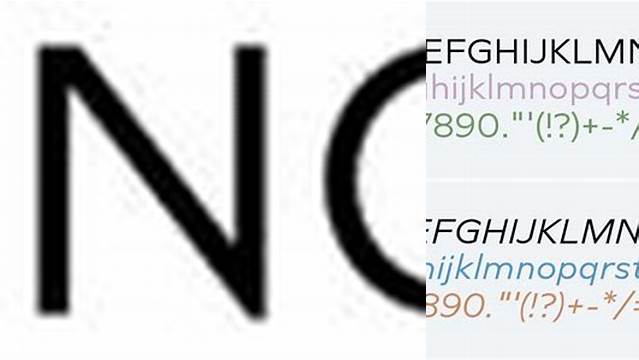
Are you on the hunt for a sleek and modern font to elevate your design projects? Look no further! The Novera Modern Regular Font is a fantastic choice, offering a contemporary aesthetic that's both versatile and visually appealing. Guys, in this article, we're diving deep into everything you need to know about this awesome font, including where to download it for free, its key features, and how to best utilize it in your creative endeavors. So, buckle up and get ready to add a touch of modern elegance to your designs!
What Makes Novera Modern Regular Font So Special?
The Novera Modern Regular Font stands out from the crowd due to its clean lines, balanced letterforms, and overall sophisticated appearance. It's a sans-serif typeface, which means it lacks the small decorative strokes (serifs) that you see in fonts like Times New Roman. This gives it a more contemporary and minimalist feel, making it perfect for a wide range of applications. Think about logos, website headers, body text, posters, and even branding materials – Novera can handle it all. Its versatility stems from its carefully crafted design, ensuring readability across various sizes and platforms. The font's neutral yet stylish character makes it a great choice for projects that require a touch of elegance without being overly flashy. Whether you're designing a sleek corporate identity or a trendy social media campaign, Novera Modern Regular Font can help you achieve a professional and polished look. The font's appeal also lies in its adaptability – it pairs well with other fonts, allowing for creative combinations and unique design outcomes. You can use it as the primary font for headlines and titles, or as a secondary font for body text, creating a visually harmonious and balanced composition. Its clear and legible structure ensures that your message is conveyed effectively, while its modern aesthetic adds a touch of sophistication. Furthermore, the Novera Modern Regular Font is often favored for its excellent kerning and spacing, which contribute to its overall readability and visual appeal. This attention to detail makes it a reliable choice for designers who value both aesthetics and functionality. In short, Novera Modern Regular Font is a versatile, modern, and visually appealing typeface that can enhance a wide range of design projects. Its clean lines, balanced letterforms, and overall sophistication make it a go-to option for designers seeking a contemporary aesthetic.
Key Features and Characteristics of Novera Modern Regular Font
Let's delve into the key features and characteristics that make the Novera Modern Regular Font a standout choice for designers. Understanding these elements will help you appreciate its unique qualities and effectively utilize it in your projects. First and foremost, Novera is a sans-serif typeface, as we mentioned earlier. This means it lacks serifs, giving it a clean and contemporary appearance. The absence of serifs makes it particularly well-suited for digital displays, where legibility is paramount. Its clean lines and simple forms contribute to its readability, even at smaller sizes. The font's letterforms are carefully balanced, creating a harmonious and visually appealing rhythm. Each character is meticulously designed to complement the others, resulting in a cohesive and professional look. The Novera Modern Regular Font boasts excellent kerning and spacing, which further enhances its readability and aesthetic appeal. Kerning refers to the spacing between individual letters, while spacing refers to the overall distance between words and lines of text. Well-kerned and spaced fonts are easier to read and create a more polished visual impression. The font's x-height, which is the height of the lowercase letters, is also an important factor. Novera has a moderate x-height, contributing to its legibility and balanced proportions. The font's weight, or thickness, is another characteristic to consider. The regular weight of Novera makes it versatile for both headlines and body text. It's not too bold, nor too light, striking a perfect balance for a wide range of applications. In addition to its aesthetic qualities, Novera Modern Regular Font also offers practical benefits. It's often available in various formats, including OTF (OpenType Font) and TTF (TrueType Font), ensuring compatibility across different operating systems and software. The font also supports a wide range of characters, including uppercase and lowercase letters, numbers, punctuation marks, and symbols. This comprehensive character set allows you to create diverse and expressive designs. Understanding these key features and characteristics of Novera Modern Regular Font will empower you to make informed decisions about its usage in your projects. Its clean lines, balanced letterforms, excellent kerning, and practical benefits make it a valuable asset in any designer's toolkit.
How to Best Utilize Novera Modern Regular Font in Your Designs
Now that you know what makes Novera Modern Regular Font so special, let's explore how to best utilize it in your designs. This font's versatility makes it a fantastic choice for a wide range of projects, but understanding its strengths and limitations will help you maximize its impact. One of the primary uses for Novera is in branding and logo design. Its clean and modern aesthetic can convey a sense of sophistication and professionalism, making it ideal for businesses that want to project a contemporary image. The font's legibility ensures that your logo will be easily recognizable, even at smaller sizes. When using Novera in logos, consider pairing it with a contrasting font for a tagline or supporting text. This can create visual interest and hierarchy in your design. Another excellent application for Novera is in web design. Its sans-serif nature makes it highly readable on screens, which is crucial for website content. You can use it for headings, body text, navigation menus, and more. The font's clean lines and balanced letterforms ensure that your website will have a professional and user-friendly appearance. When using Novera for body text, pay attention to line spacing and font size to ensure optimal readability. In print design, Novera can be used for a variety of projects, including posters, brochures, flyers, and business cards. Its versatility allows it to adapt to different styles and formats. When using Novera in print, consider the overall layout and composition of your design. The font's clean lines can complement both minimalist and more complex designs. For social media graphics, Novera can help you create visually appealing and engaging content. Its modern aesthetic is well-suited for social media platforms, where visuals play a crucial role in attracting attention. When using Novera in social media, experiment with different font sizes, colors, and styles to create a unique and eye-catching look. Remember, guys, that Novera pairs well with a variety of other fonts, allowing for creative combinations. Consider pairing it with a serif font for a classic and elegant look, or with another sans-serif font for a more contemporary feel. By understanding Novera's strengths and experimenting with its applications, you can effectively incorporate it into your designs and achieve stunning results. Its versatility and modern aesthetic make it a valuable asset in any designer's toolkit.
Pairing Novera Modern Regular Font with Other Fonts
One of the keys to successful typography is understanding how to pair fonts effectively. The Novera Modern Regular Font, with its clean and modern aesthetic, is a versatile typeface that can be paired with a variety of other fonts to create visually appealing and balanced designs. When choosing a font pairing, it's essential to consider the overall tone and message you want to convey. Different font combinations can evoke different emotions and create different visual hierarchies. A classic approach is to pair a sans-serif font like Novera with a serif font. This combination creates a sense of contrast and sophistication. Serif fonts, with their small decorative strokes, tend to have a more traditional and formal feel, while sans-serif fonts offer a more contemporary and clean look. For example, you could pair Novera with a serif font like Garamond or Times New Roman for a timeless and elegant design. This combination works well for projects that require a touch of formality, such as invitations, brochures, or corporate materials. Another option is to pair Novera with another sans-serif font. This can create a more modern and cohesive look. However, it's crucial to choose a sans-serif font that complements Novera without being too similar. Look for a font with distinct characteristics, such as a different weight, width, or letterform style. For instance, you could pair Novera with Open Sans or Montserrat for a clean and contemporary design. This combination is well-suited for websites, social media graphics, and other digital applications. When pairing fonts, it's also important to consider the visual hierarchy of your design. Use different font sizes and weights to emphasize certain elements and guide the viewer's eye. For example, you could use Novera for headlines and a smaller, lighter font for body text. This creates a clear distinction between the different levels of information and makes your design more readable. Remember, guys, that font pairing is a subjective process, and there's no one-size-fits-all solution. Experiment with different combinations and see what works best for your project. Consider the overall aesthetic you're trying to achieve and choose fonts that complement each other in terms of style, weight, and readability. By mastering the art of font pairing, you can elevate your designs and create visually stunning and effective communications. Novera Modern Regular Font's versatility makes it a fantastic choice for exploring different font combinations and achieving a wide range of design styles.
Final Thoughts on Novera Modern Regular Font
In conclusion, the Novera Modern Regular Font is a fantastic addition to any designer's toolkit. Its clean lines, balanced letterforms, and overall modern aesthetic make it a versatile choice for a wide range of projects. From branding and logo design to web and print applications, Novera can help you create visually appealing and effective communications. Its legibility and readability ensure that your message is conveyed clearly, while its contemporary style adds a touch of sophistication to your designs. Whether you're a seasoned designer or just starting out, Novera is a font that you'll find yourself reaching for again and again. Its versatility and timeless appeal make it a reliable choice for a variety of design challenges. Remember, guys, that typography is a crucial element of design, and choosing the right font can make a significant impact on the overall success of your project. Novera's clean and modern aesthetic can convey a sense of sophistication and professionalism, making it ideal for businesses that want to project a contemporary image. Its legibility ensures that your message will be easily recognizable, even at smaller sizes. By understanding Novera's strengths and exploring its various applications, you can effectively incorporate it into your designs and achieve stunning results. Its versatility and modern aesthetic make it a valuable asset in any designer's toolkit. So go ahead, download Novera Modern Regular Font for free and start experimenting with its possibilities. You'll be amazed at how it can transform your designs and help you create visually compelling and impactful communications. Happy designing!